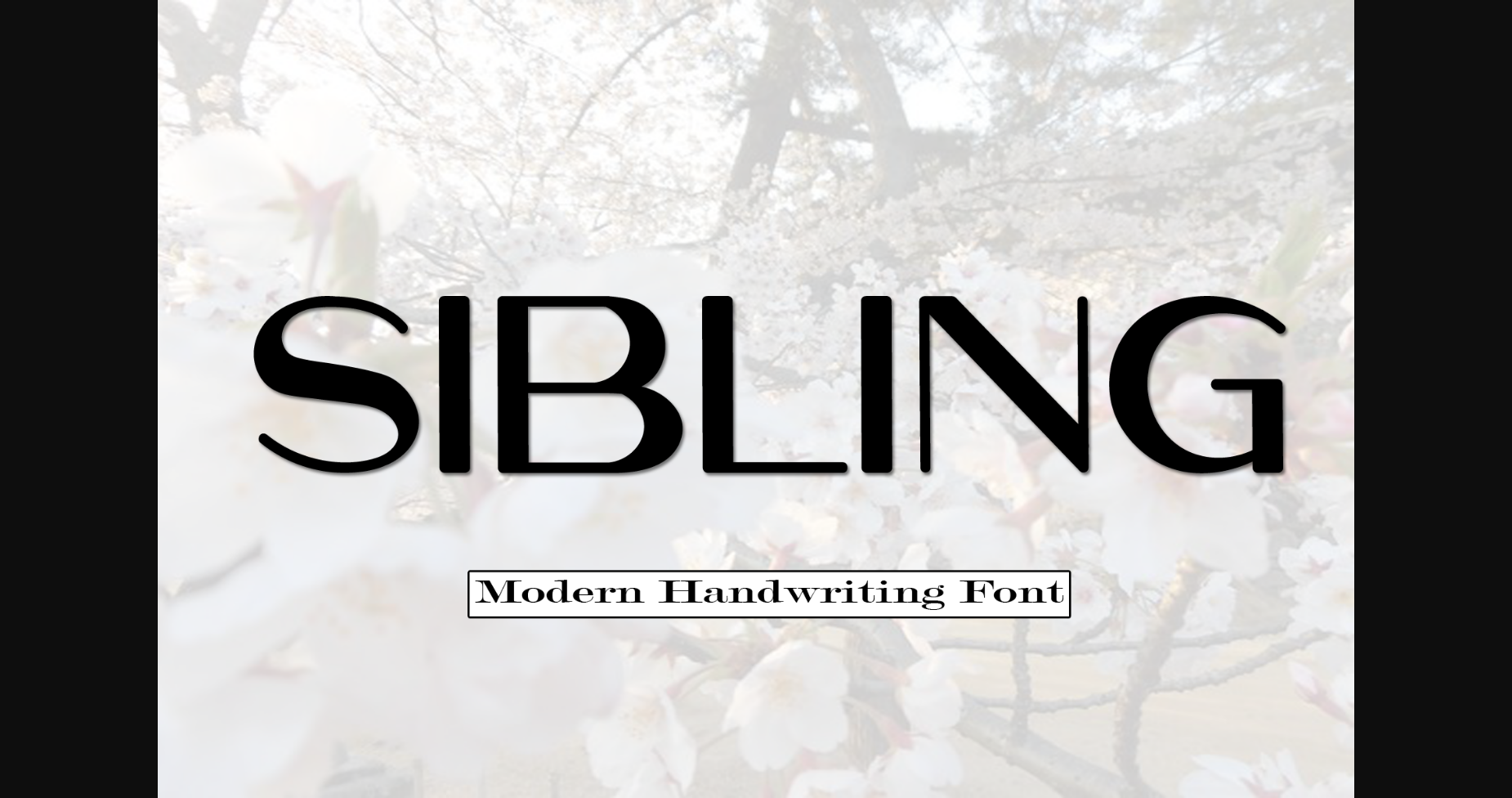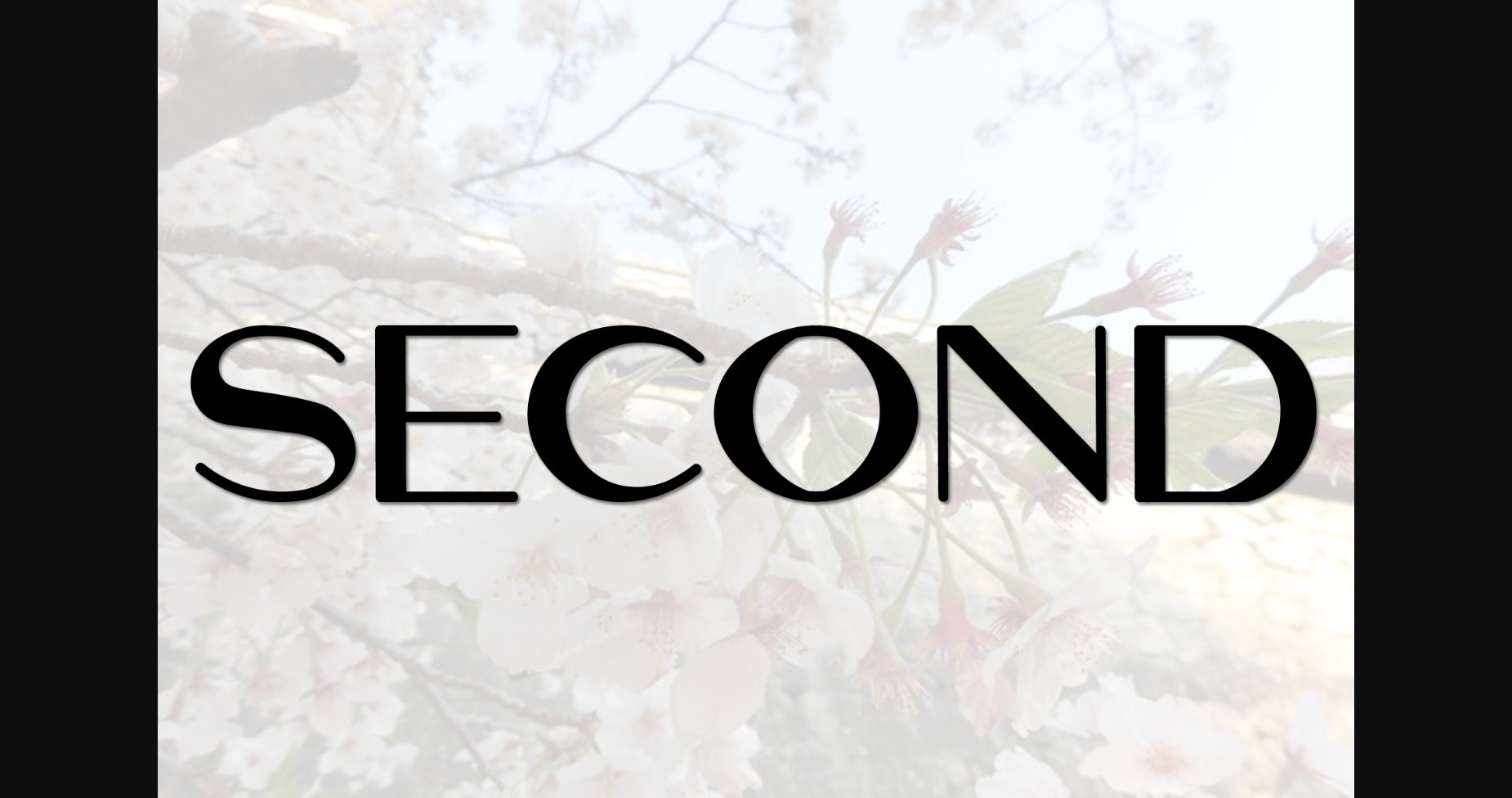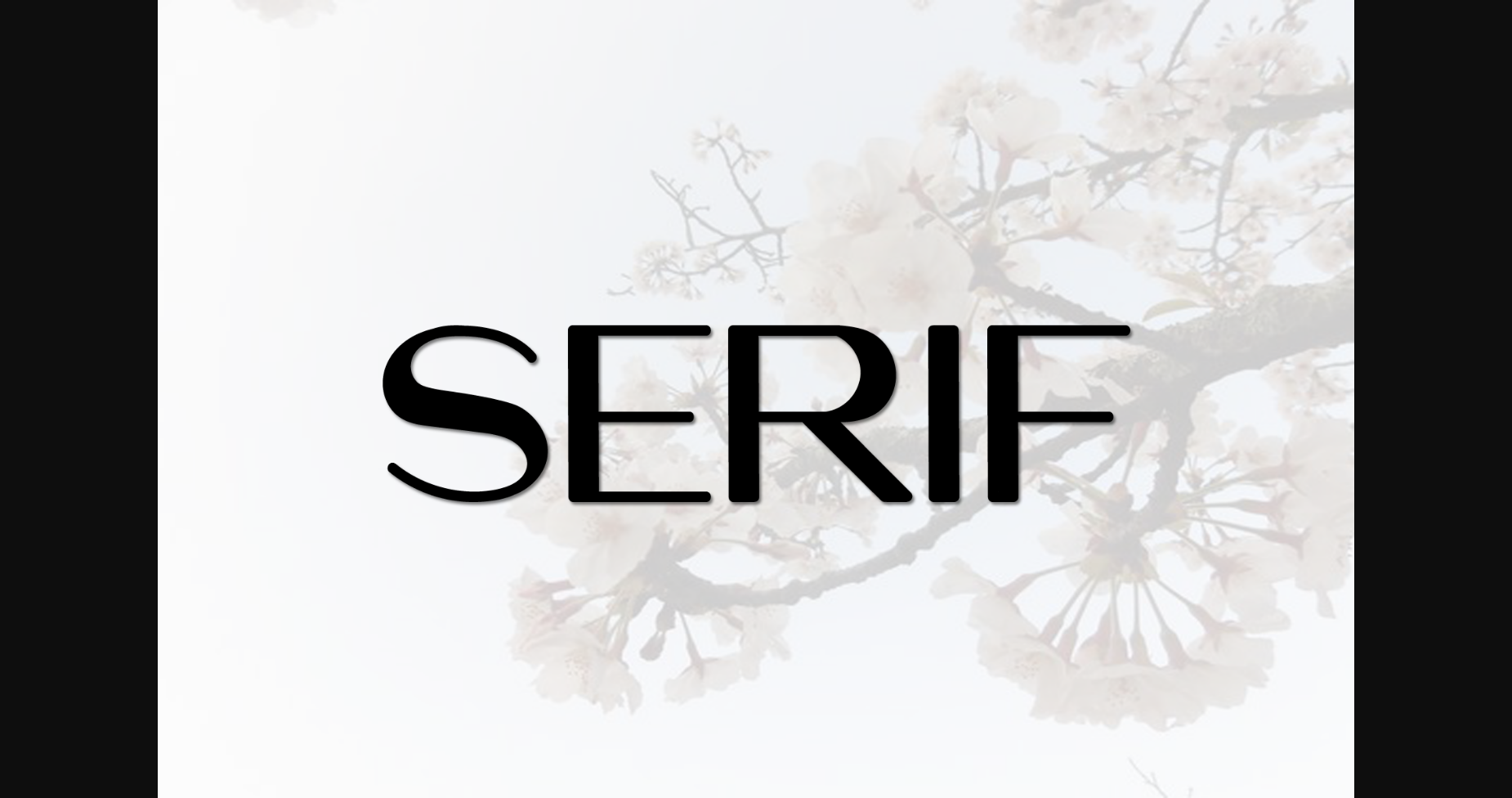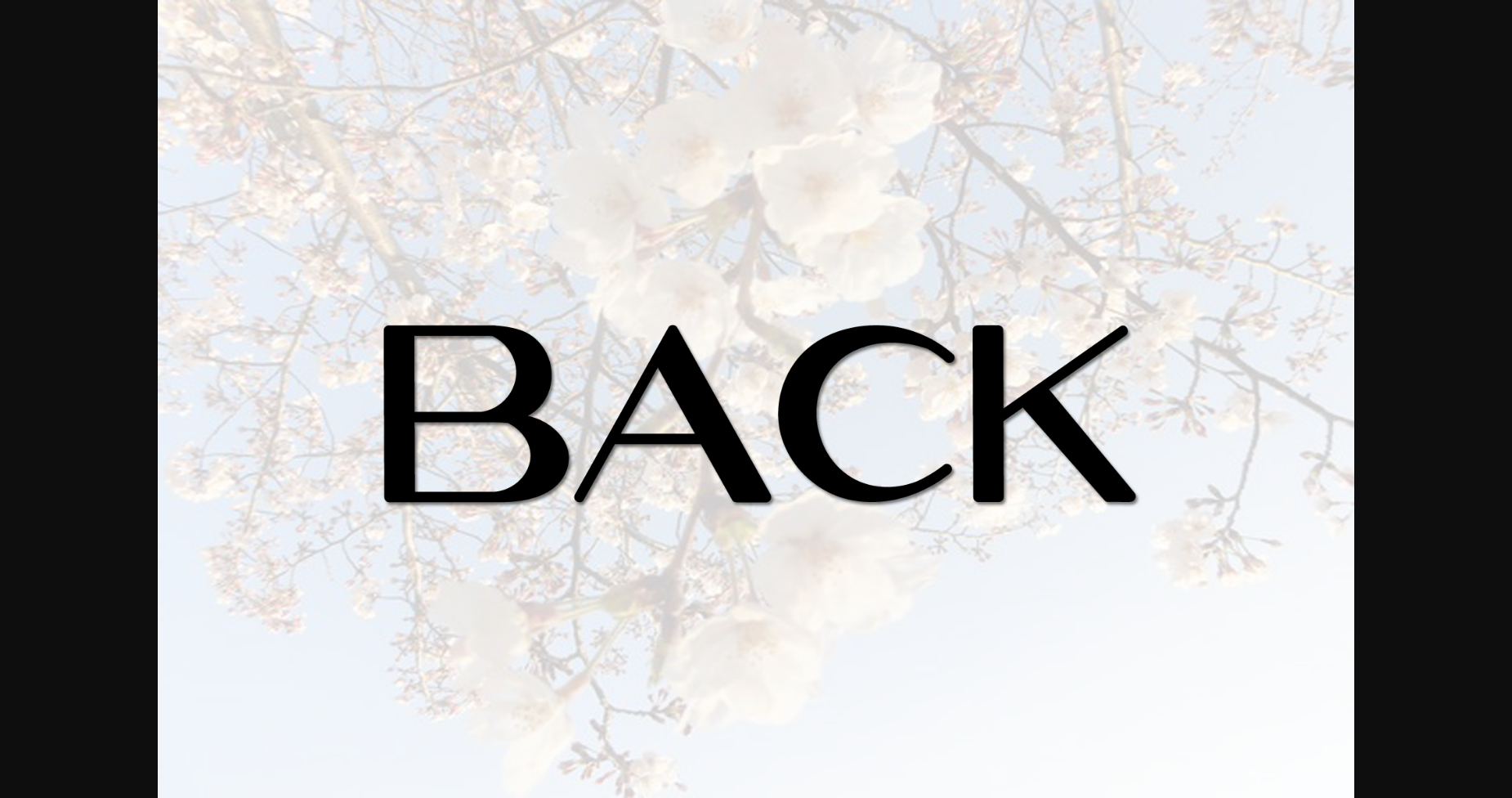
Sibling Font
About Sibling Font
Sibling is a stylish and very elegant handwritten font. It looks amazing on wedding invitations, thank you cards, quotes, greeting cards, logos, business cards and any other design that calls for a handwritten touch.